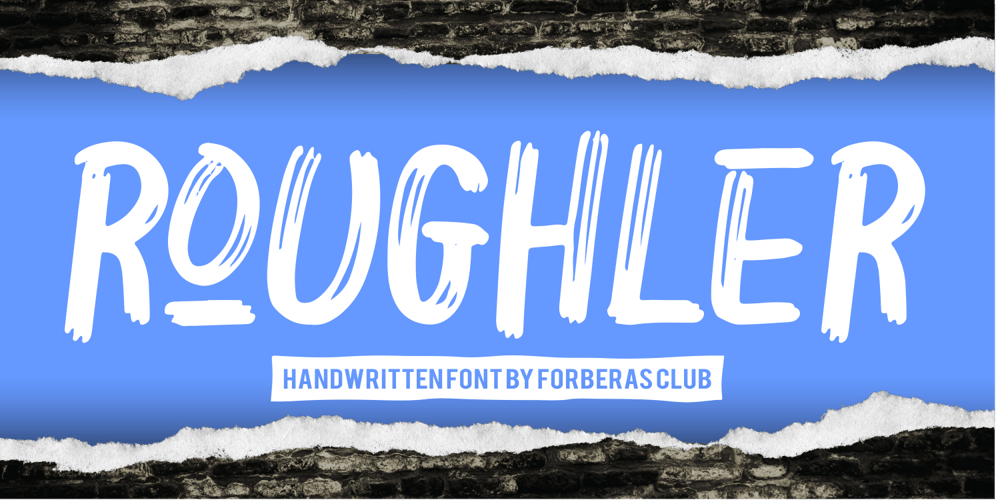
Roughler Font Family was designed by ANGGI HERMAWAN and published by Forberas Club. Roughler contains 1 styles and family package options. Roughler is brush font with clean and simple font. This font can apply to banner, wallpaper, tees, music theme, cover and party moment with brush style.